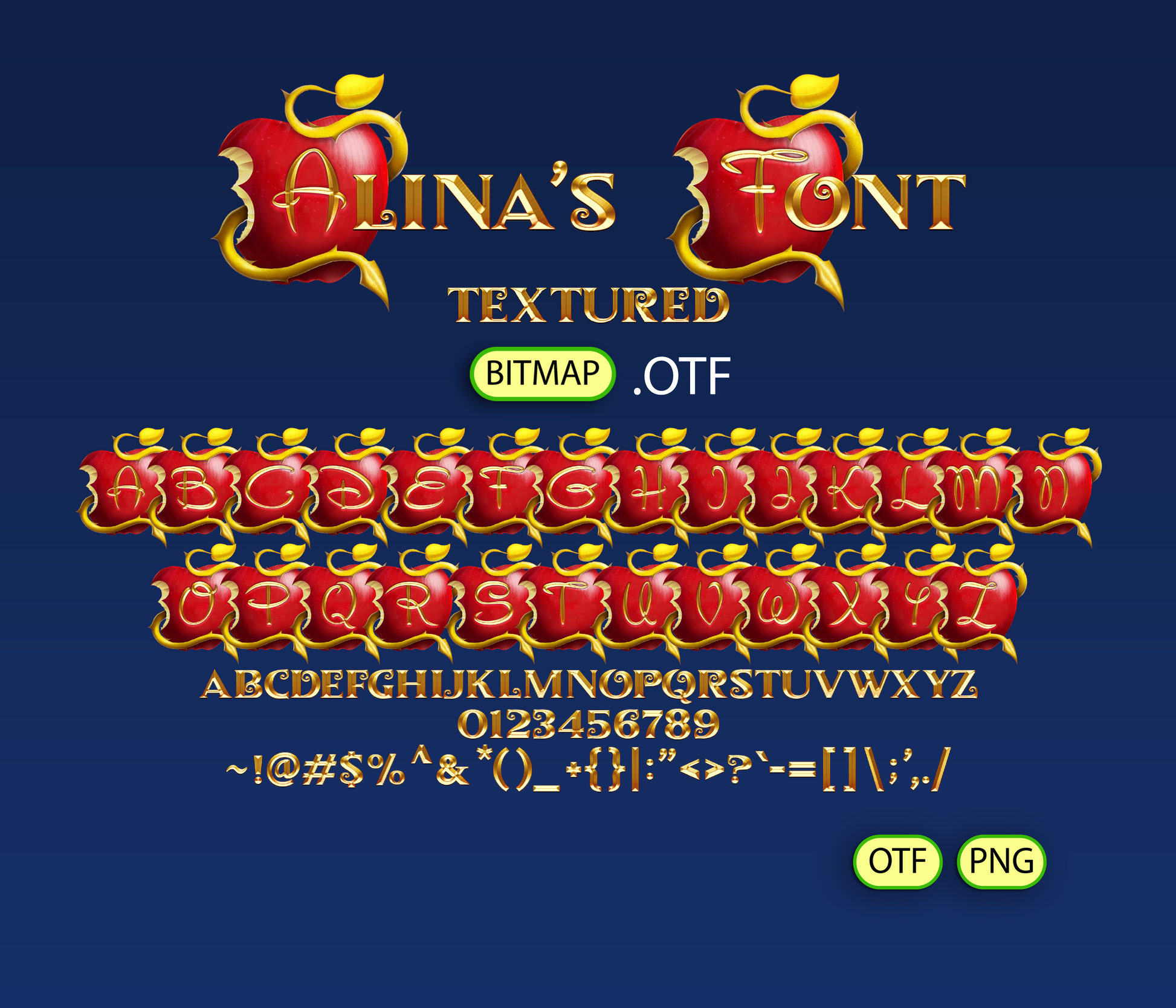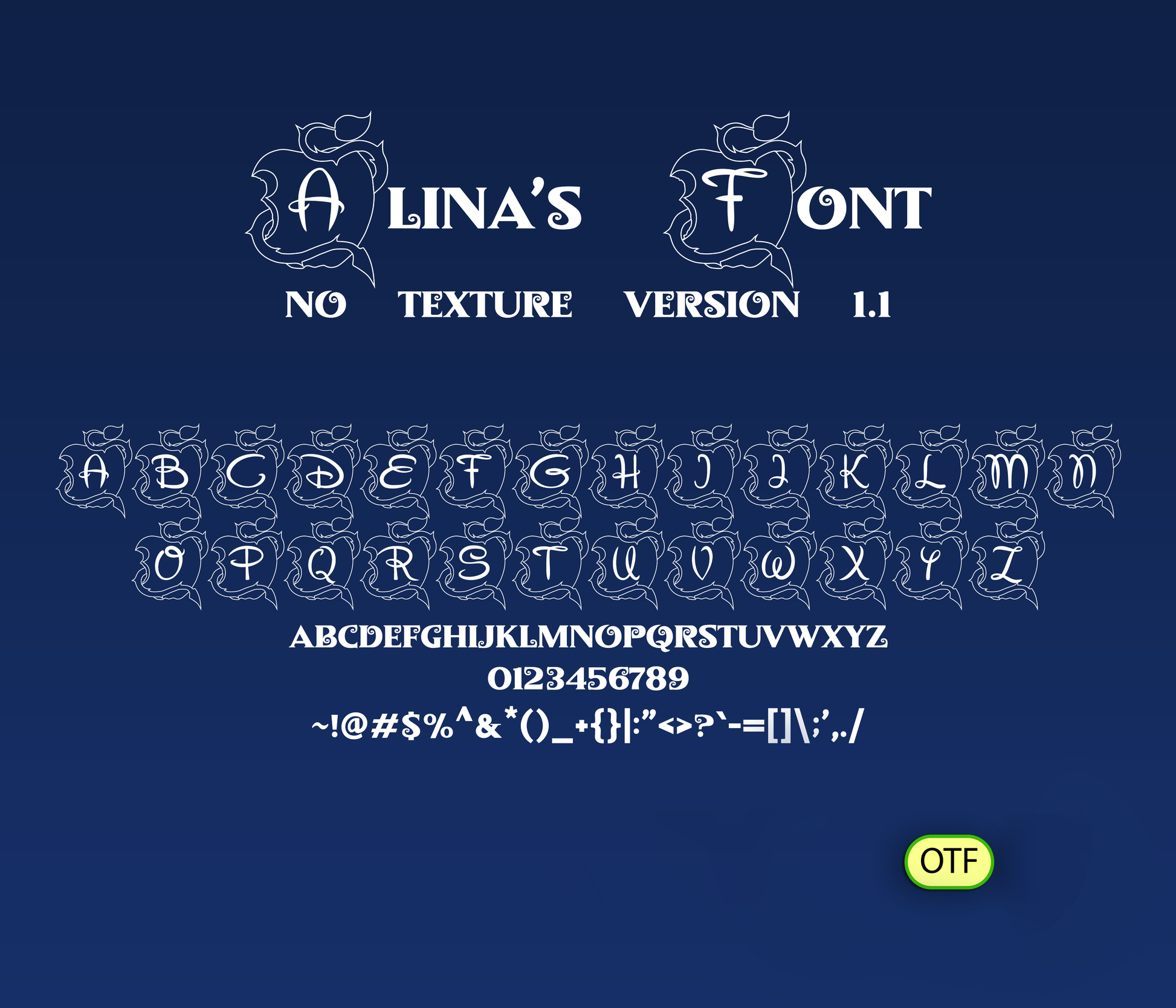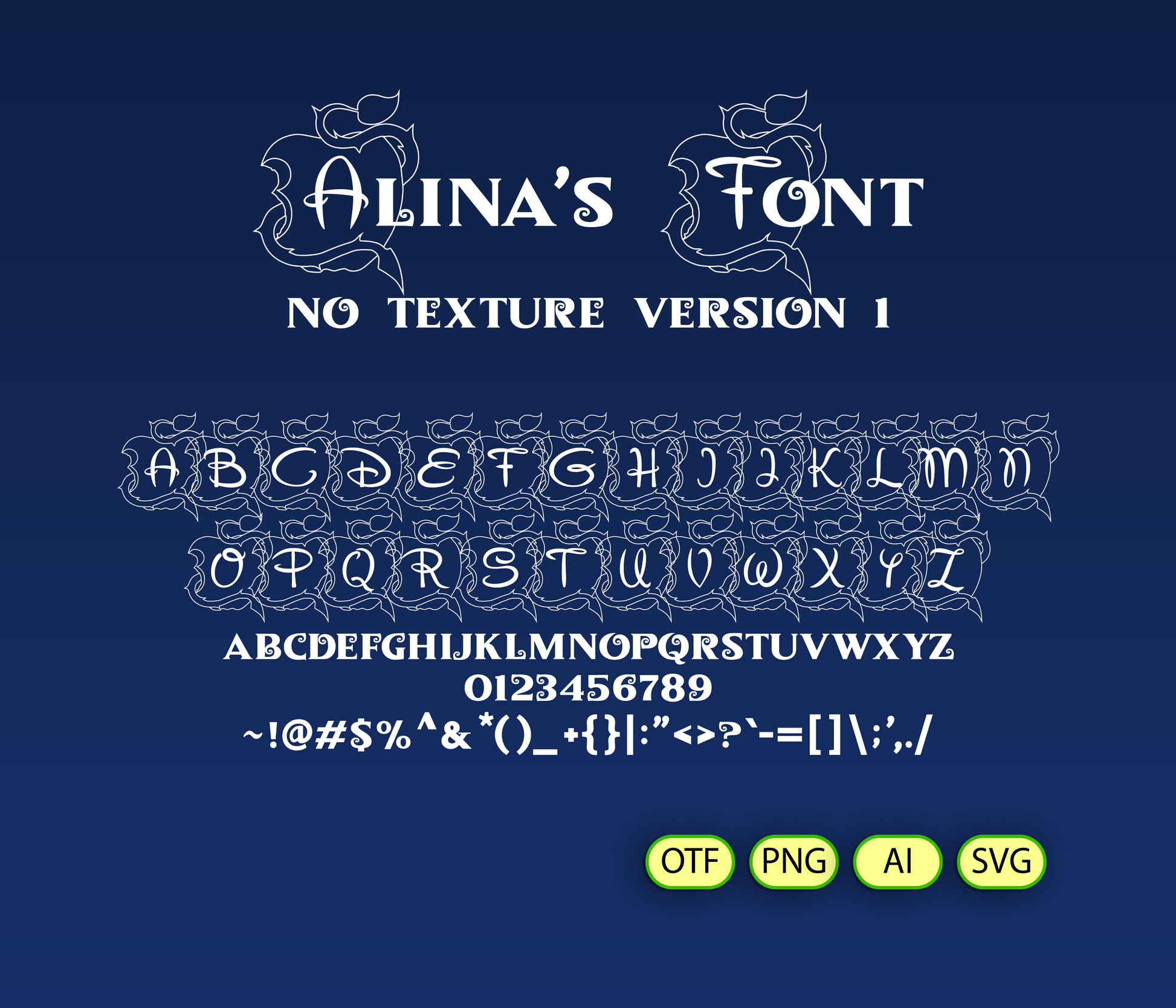
Enchanted Heritage Font Textured Bundle
Step into the mystical world of modern fairy-tale youth with our Enchanted Heritage font, capturing the essence of magical lineage and contemporary spells. Perfect for modern fantasy fans, party planners, event organizers, and designers, this font brings the dynamic, trendsetting spirit of magical teens to your projects. Create fashionable materials, merchandise, or digital content with the fresh energy of next-generation enchantment.
Our Enchanted Heritage font features sleek, contemporary lines and stylish characters reflecting the world of modern magic. Ideal for:
1. Event Promotions: Create trendy invites, posters, and banners for youth parties, magical proms, and themed celebrations that capture the spirit of new-age enchantment
2. Merchandise Design: Perfect for t-shirts, posters, and accessories that showcase the fashionable side of magical legacy
3. Digital Media: Enhance websites, blogs, and social media with fresh headers and graphics that express the fusion of tradition and trend
4. Fantasy Content: Add authentic flair to fan art, fashion designs, and creative projects inspired by young magic wielders
5. Personal Projects: Bring modern enchantment to scrapbooking, DIY crafts, and home decor inspired by the world of magical youth
Our font pays tribute to the exciting world of modern magical youth, empowering your designs with its fresh and enchanted spirit. Whether crafting promotional materials, designing merchandise, or adding a contemporary touch to personal projects, this font communicates the bold essence of next-generation magic. Ready to inject trendy spells into your creations? This font is your key to exciting, impactful design.